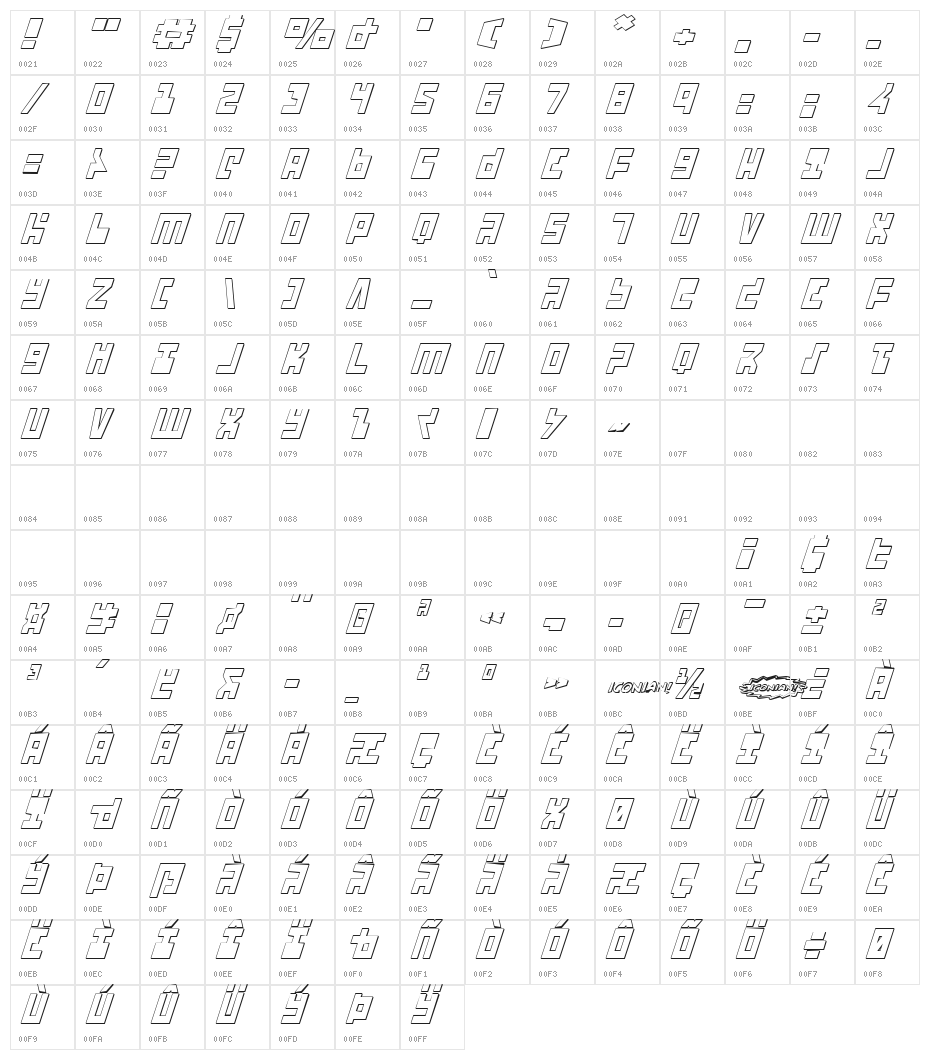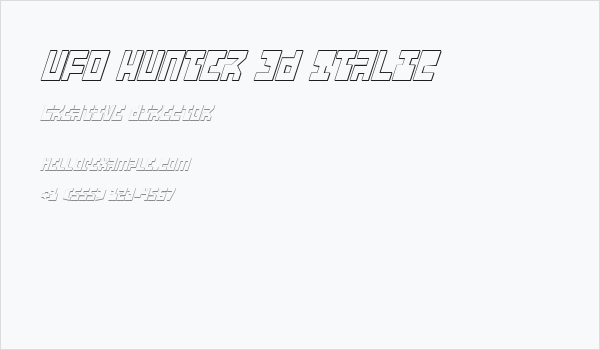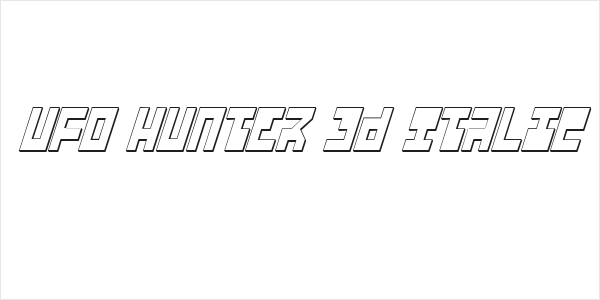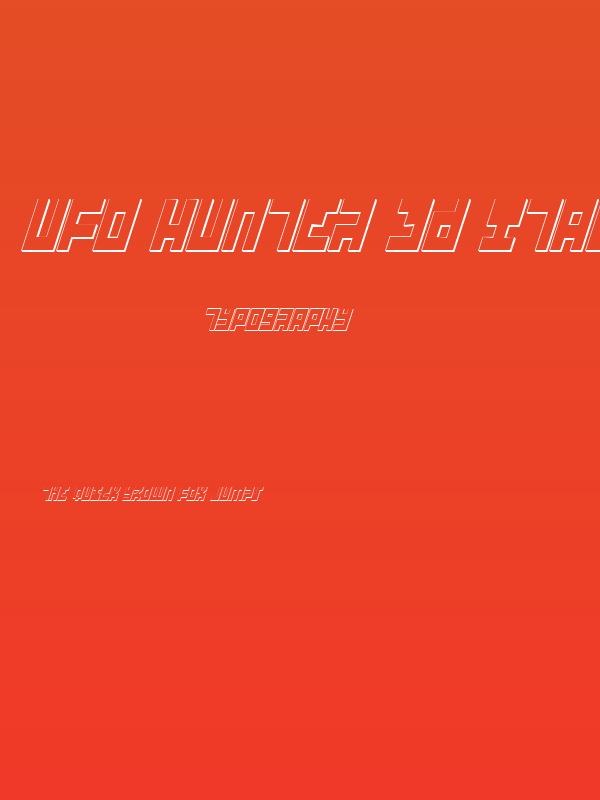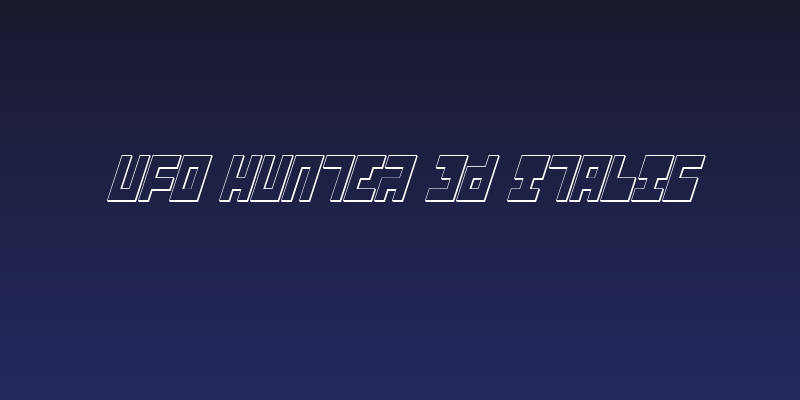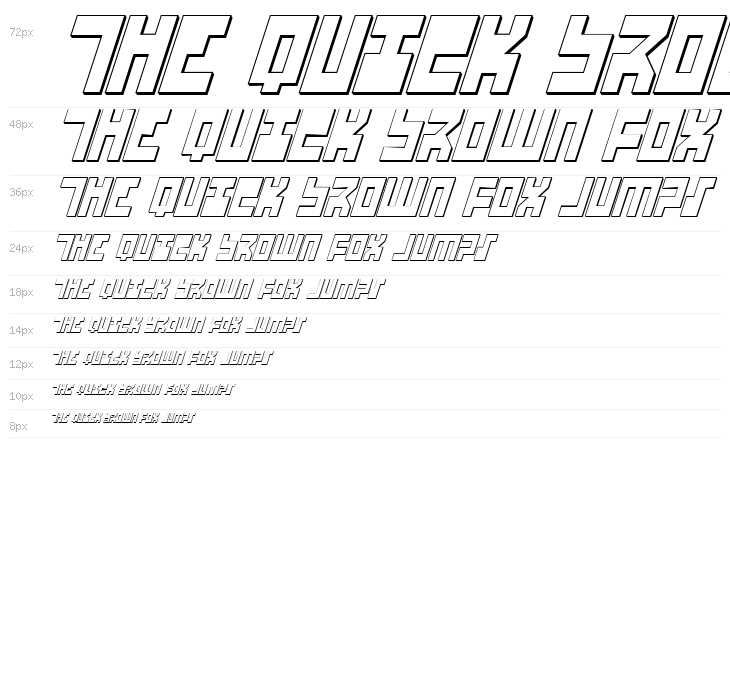
UFO Hunter 3D Italic Font
UFO Hunter 3D Italic Description
This font features a bold, three-dimensional design with an italic slant, giving it a dynamic and futuristic appearance. The characters are outlined, creating a hollow effect that enhances the 3D illusion. Each letter and number is constructed with sharp angles and straight lines, contributing to a geometric and modern aesthetic. The uppercase and lowercase letters maintain a consistent style, with the lowercase mirroring the uppercase in form. The numerals and special characters follow the same design principles, ensuring uniformity across the font. This font's unique style makes it stand out, ideal for projects requiring a bold and eye-catching typeface.